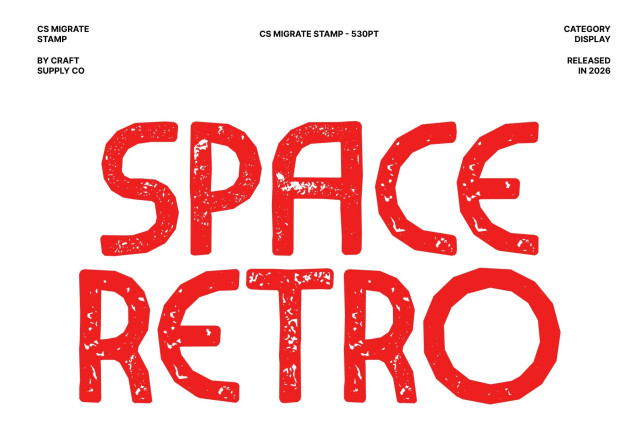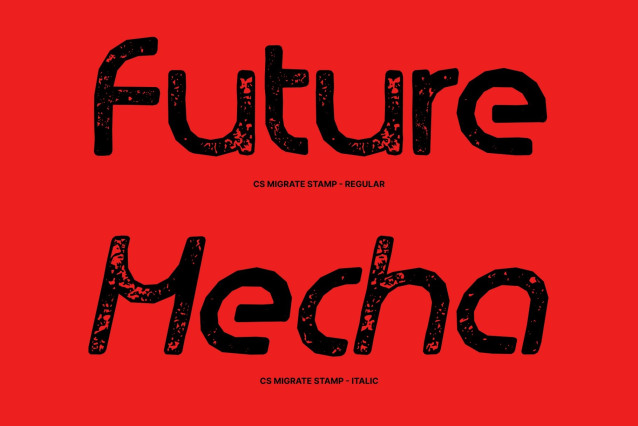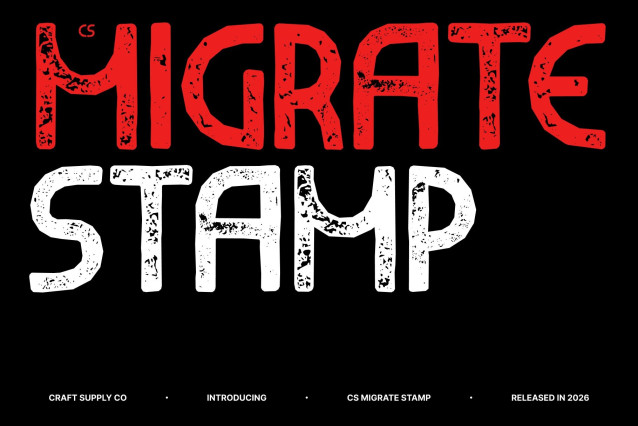
CS Migrate Stamp Font
CS Migrate Stamp – Display Sans Serif Font: Where Modern Strength Meets Artistic Expression
Bold Forms with Contemporary Impact
This is a modern display sans serif font designed with bold, striking letterforms that instantly capture attention. Its strong structure and confident weight create a powerful visual presence, making it perfect for designs that demand clarity and impact. Each character is built to stand out, delivering a clean yet commanding tone across any composition.
Handcrafted Stamp Texture with Unique Personality
This font introduces a textured, handmade quality that brings individuality to every letter. The slightly imperfect, stamped finish adds depth and an artistic vibe, making the font feel lively and expressive. This detail transforms simple typography into a more engaging and character-driven visual element.